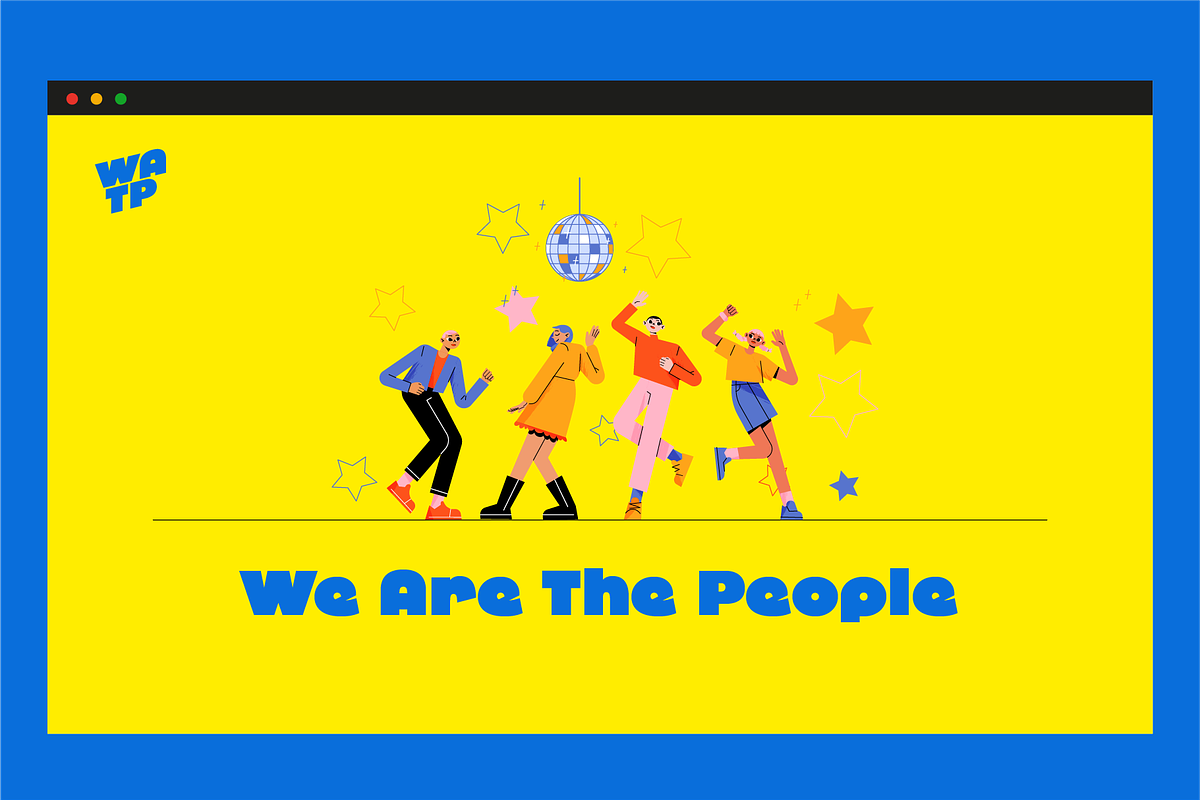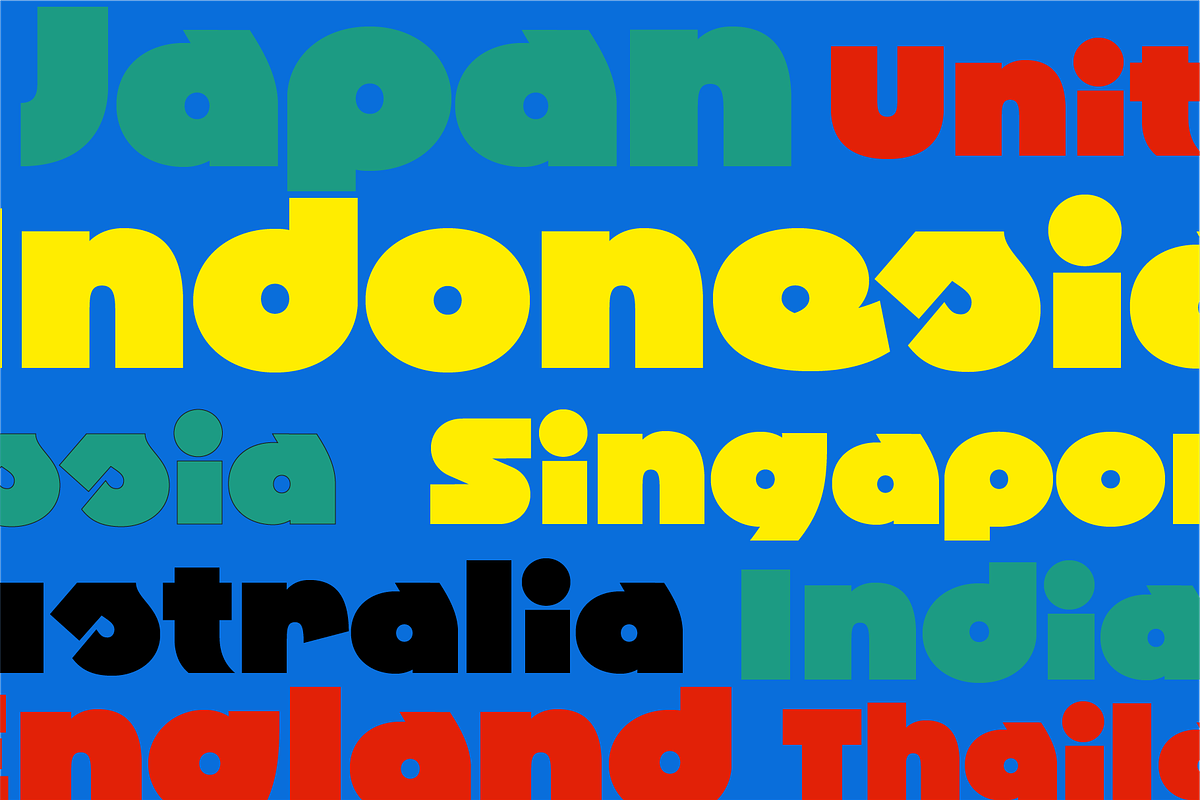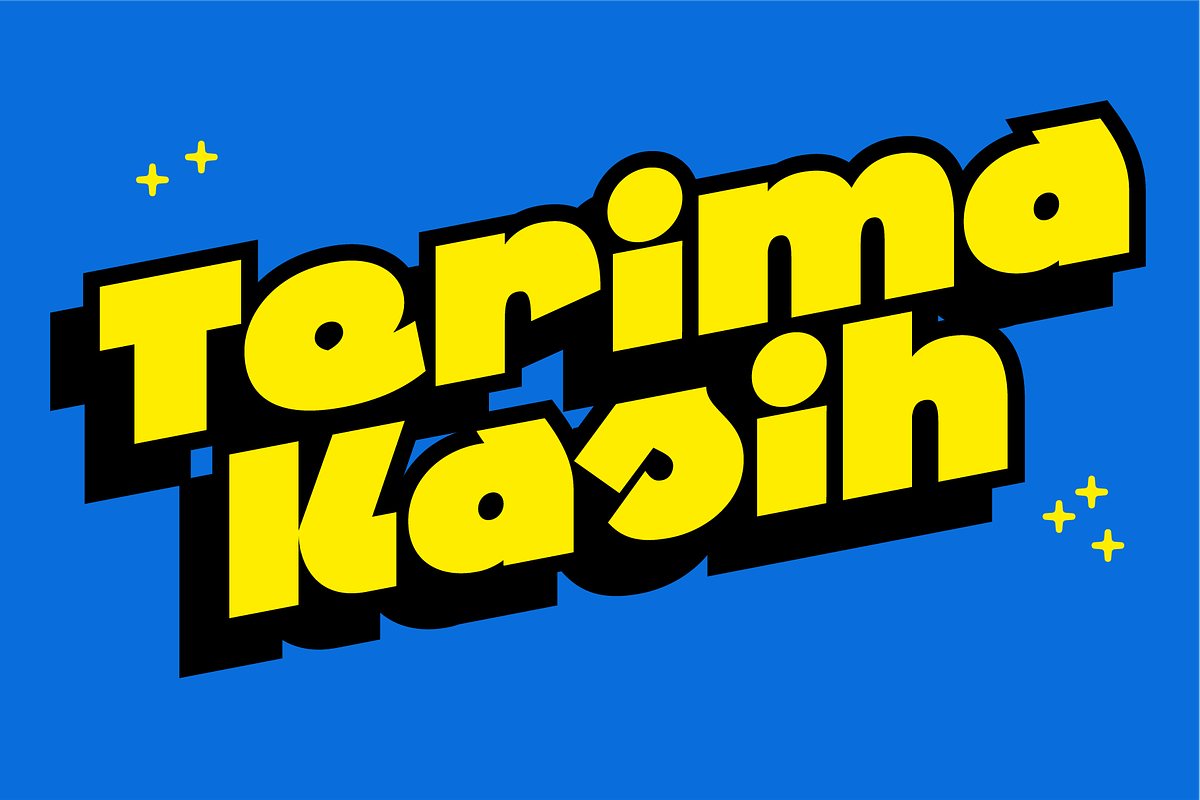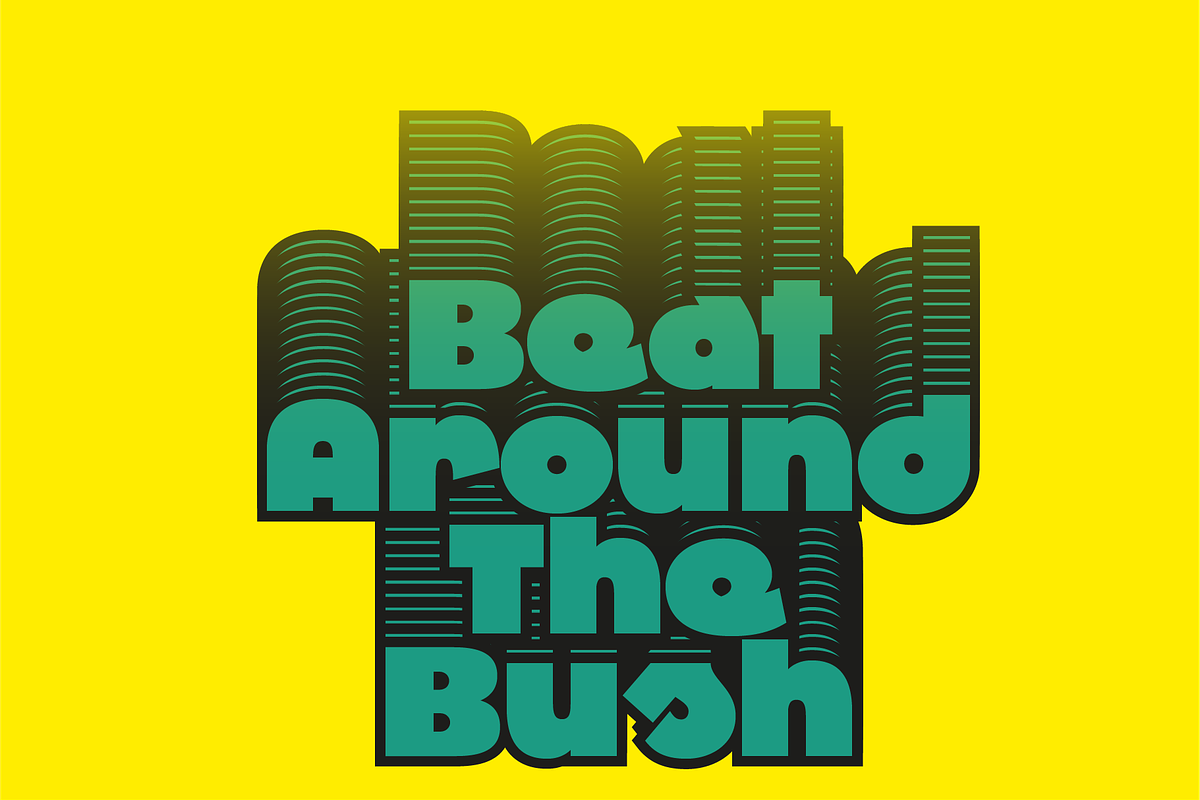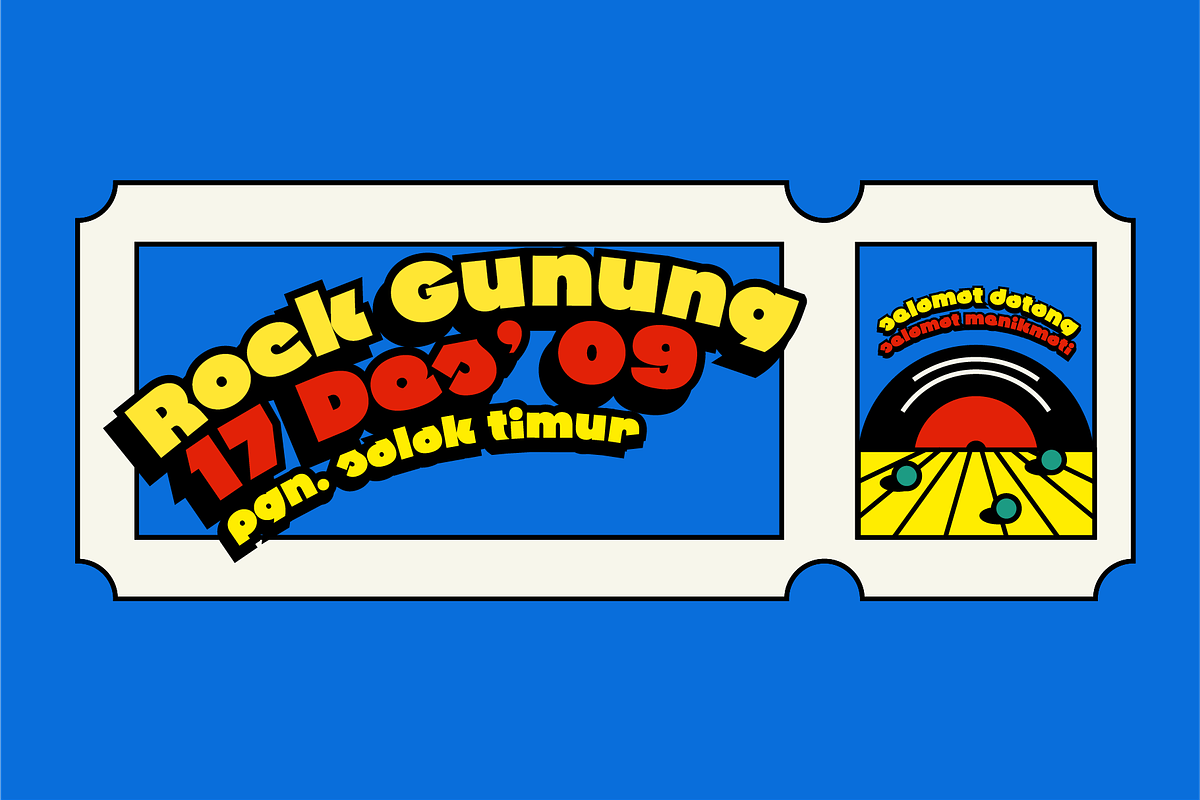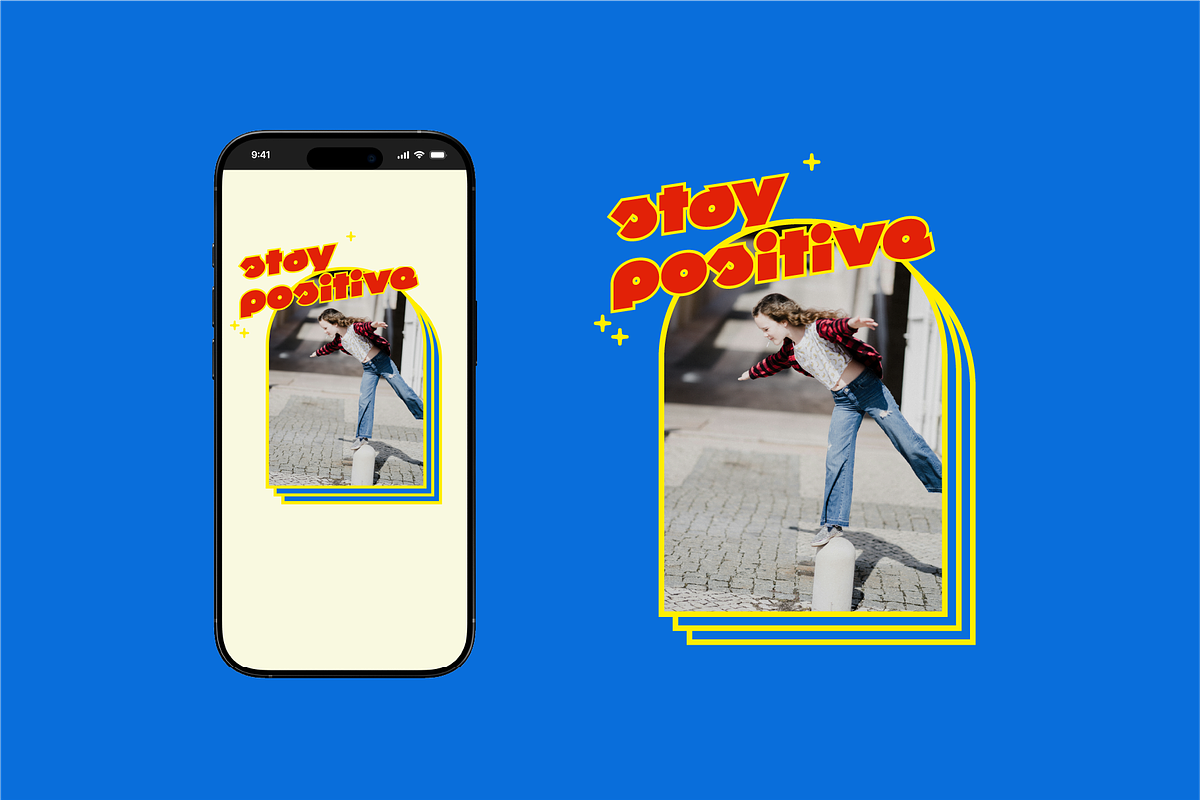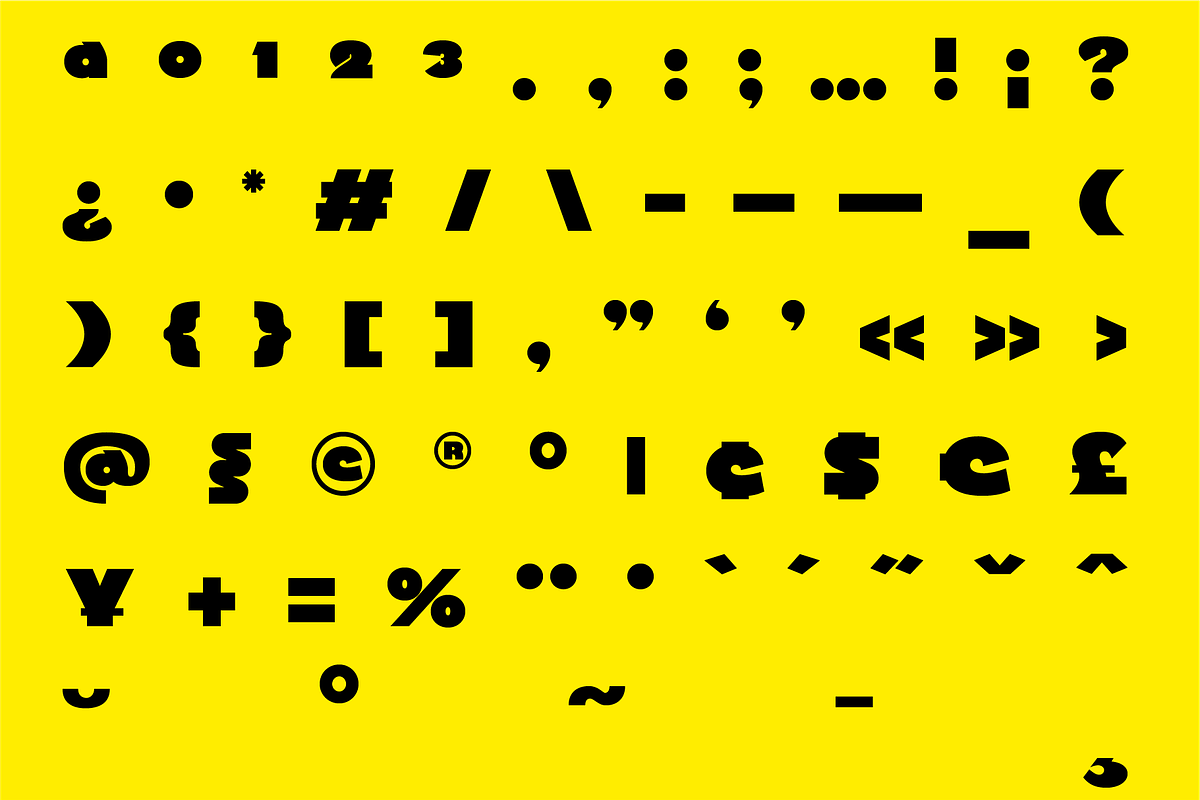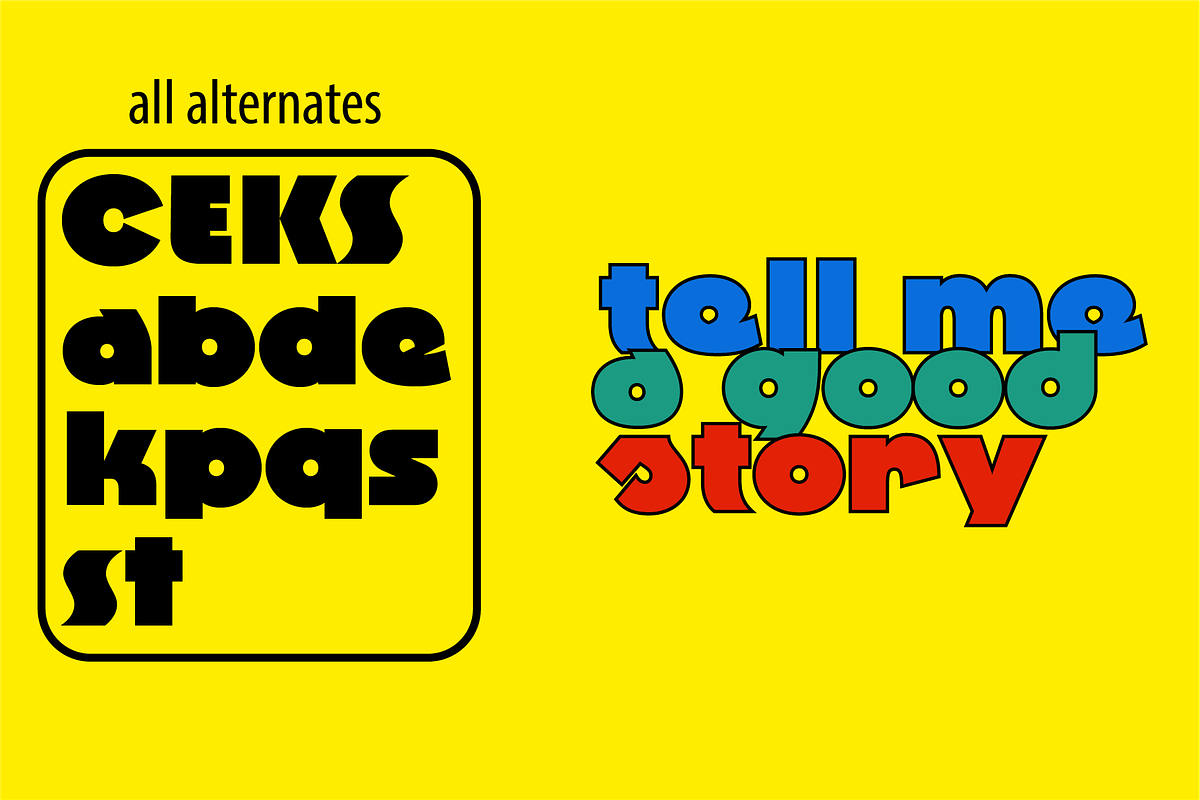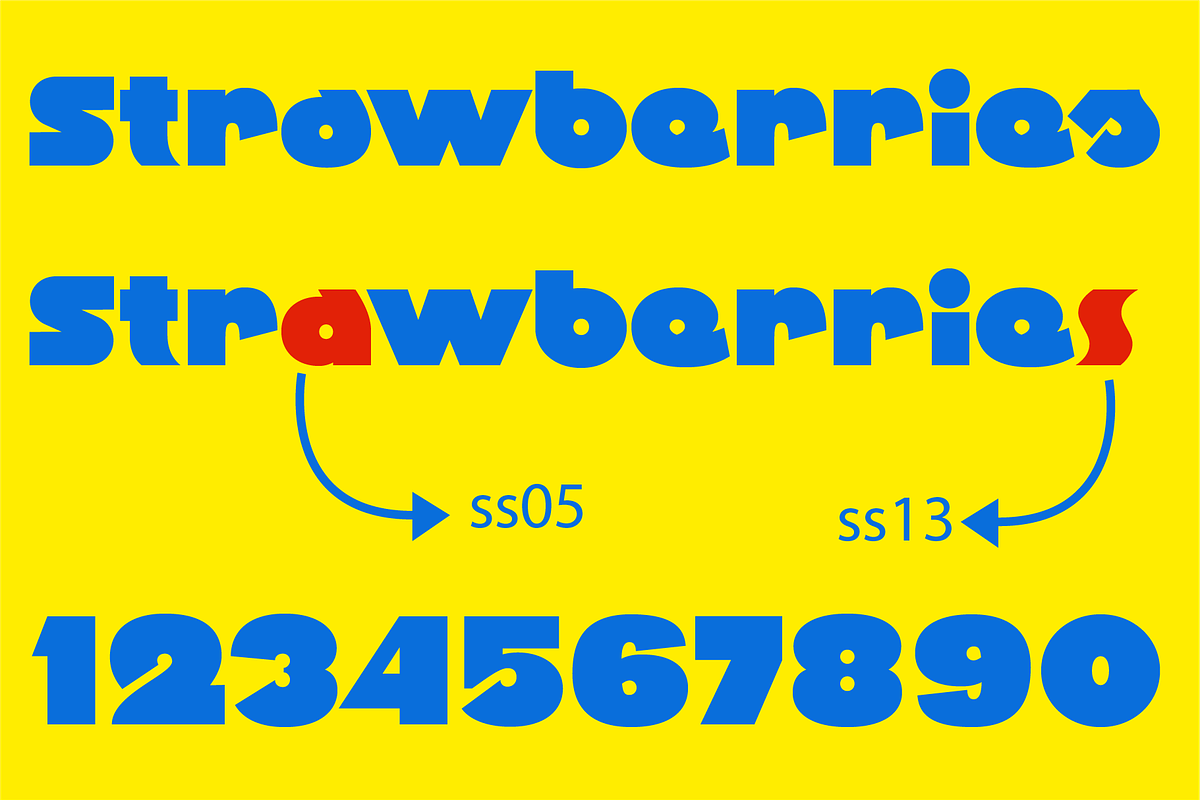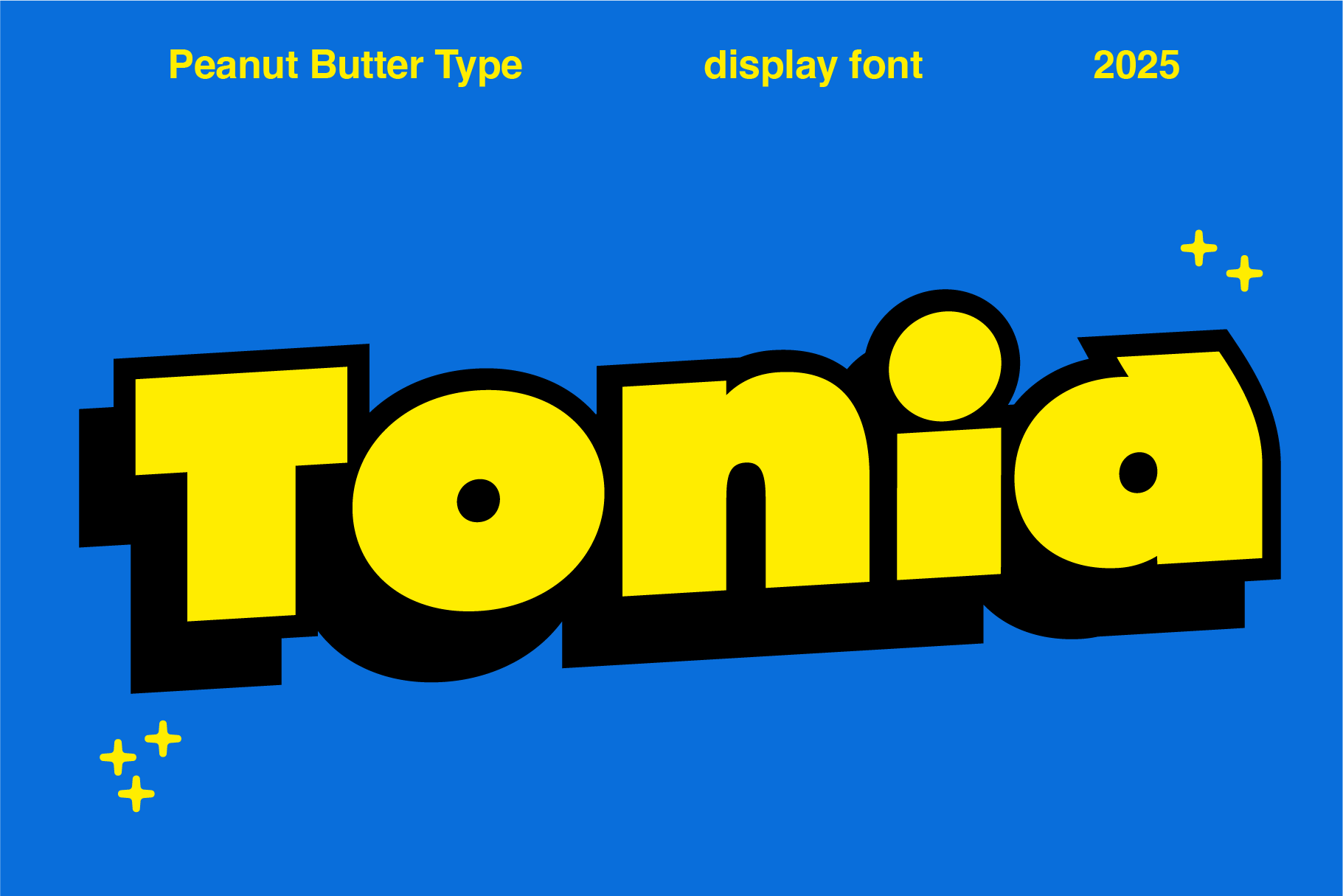
Tonia Fun and Quirky Sans Serif Font
Tonia is a fun, super bold sans-serif typeface that brings energy and excitement to any design. With its thick, confident letterforms and playful personality, this font is perfect for eye-catching projects that demand attention. Whether you're working on branding, posters, packaging, social media graphics, or children’s designs, Tonia’s lively and modern style adds a sense of fun and creativity. Its bold structure ensures excellent readability, making it a fantastic choice for both digital and print applications. If you're looking for a typeface that exudes confidence and charm, Tonia is a great option to explore.